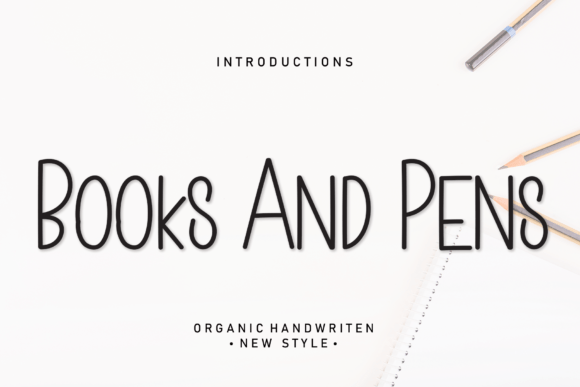
Introducing Books and Pens Font, the ultimate choice for those in search of the Best Font for Design Logo. Created by the talented andikastudio, this script font exudes a cool and casual vibe, perfect for adding a touch of personality to your projects.
With Books and Pens Font, your creativity knows no bounds. Crafters, rejoice! Whether you're working on DIY projects or scrapbooking, this font will effortlessly elevate your designs, making them stand out from the crowd. Its handwritten style brings a sense of authenticity, adding a unique and personal touch to every piece.
Digital designers, get ready to take your creations to the next level. Books and Pens Font is the missing piece in your toolbox. Its captivating curves and fluid strokes make it ideal for logos, website headers, and social media graphics. Your brand will instantly become more memorable and recognizable with the help of this font's charm.
Presentations will never be the same again. Books and Pens Font injects an element of elegance and sophistication into your slides, making them visually appealing and captivating. Leave a lasting impression on your audience with this versatile and eye-catching font.
Sending heartfelt messages has never been easier. Whether it's a birthday card, a thank-you note, or a wedding invitation, Books and Pens Font adds a touch of warmth and charm. Your words will come to life, conveying emotions effortlessly, leaving the recipient in awe.
In conclusion, Books and Pens Font is the ultimate choice for anyone seeking a font that combines style, versatility, and creativity. Its cool and casual vibe, along with its captivating curves, will make it your go-to font for all occasions. Take your designs to new heights and let your creativity flourish with Books and Pens Font.